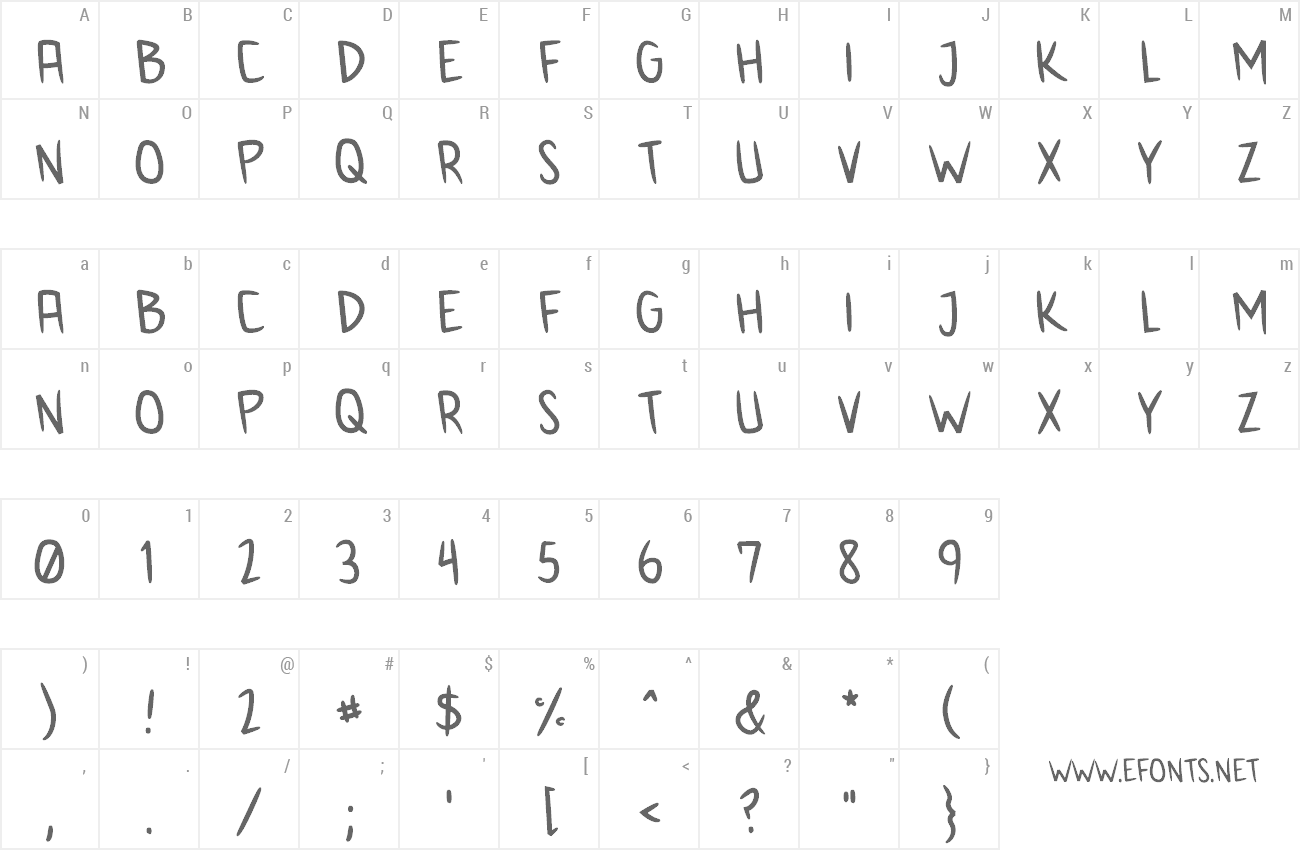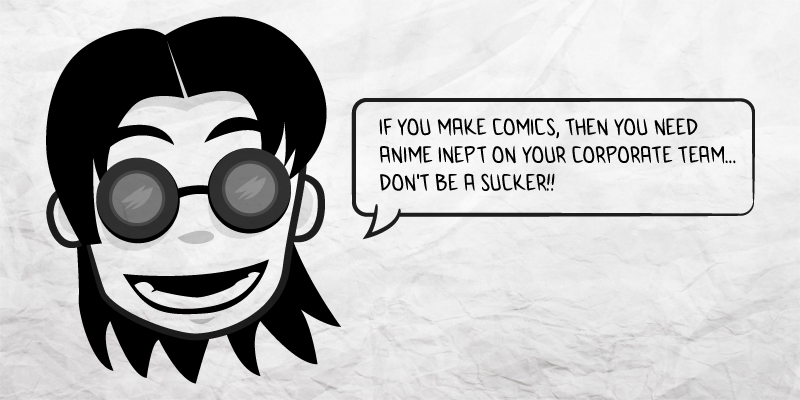
I've wanted to make comics since I was a kid. There are many free comic fonts, but Anime Inept has a more handwritten flow to it. Of course, comic book text is always uppercase. This font includes many foreign characters and characters as well. Anime Inept only comes in one weight, but if you're resourceful you can bold it on your own. You need Anime Inept on your corporate team! Excelsior! Catch this font on my upcoming webcomics Development and Torin Bigtoe: developmentcomic.com undeadentertainment.com/torin-bigtoe ----------------------- Check out all of our fonts, free and premium, at: http://muraknockout.com ----------------------- Please DO NOT download this font and redistribute it on another website! This font is free for any personal or commercial project. For a full licensing agreement please check out: http://muraknockout.com/licensing |